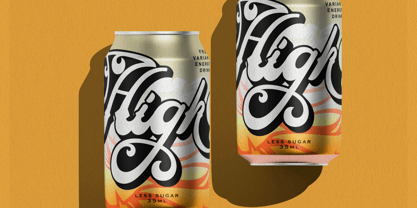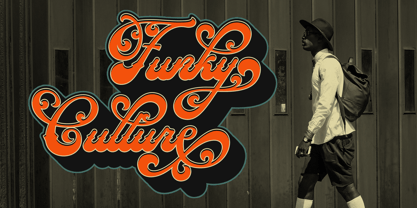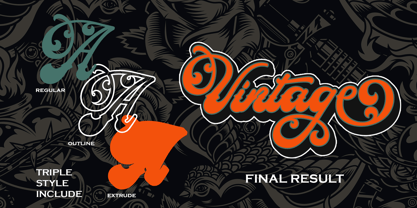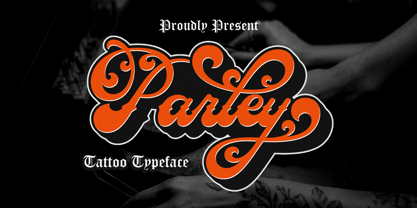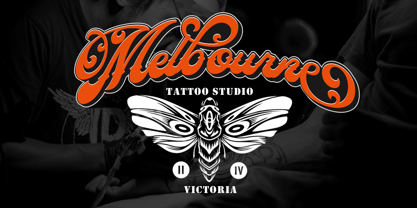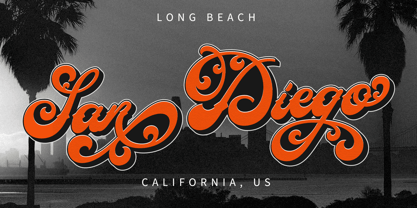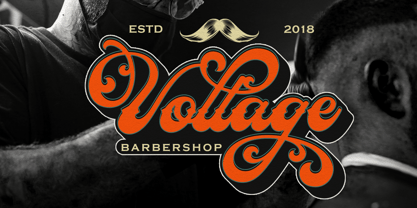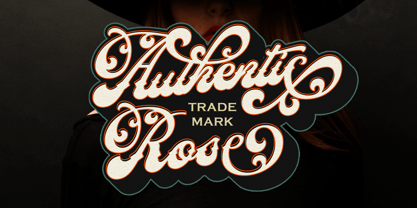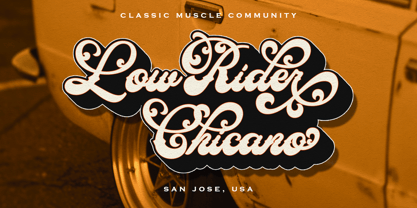
Parley Tatto Script
by Letterfreshstudio
The Parley Tatto Script Font Family was designed by Rizki Andika and published by Letterfreshstudio. Parley Tatto Script contains 3 styles and family package options. More about this family
Introducing our new product called Parley Tattoo font. Parley Tattoo includes uppercase and lowercase letters, numbers, various punctuation marks and ligatures. All lowercase letters include ending swashes and alternate fonts.
FEATURES:
Uppercase Lowercase Numbers Punctuation Multilingual Opentype Swashes
Designers: Rizki Andika
Foundry: Letterfreshstudio